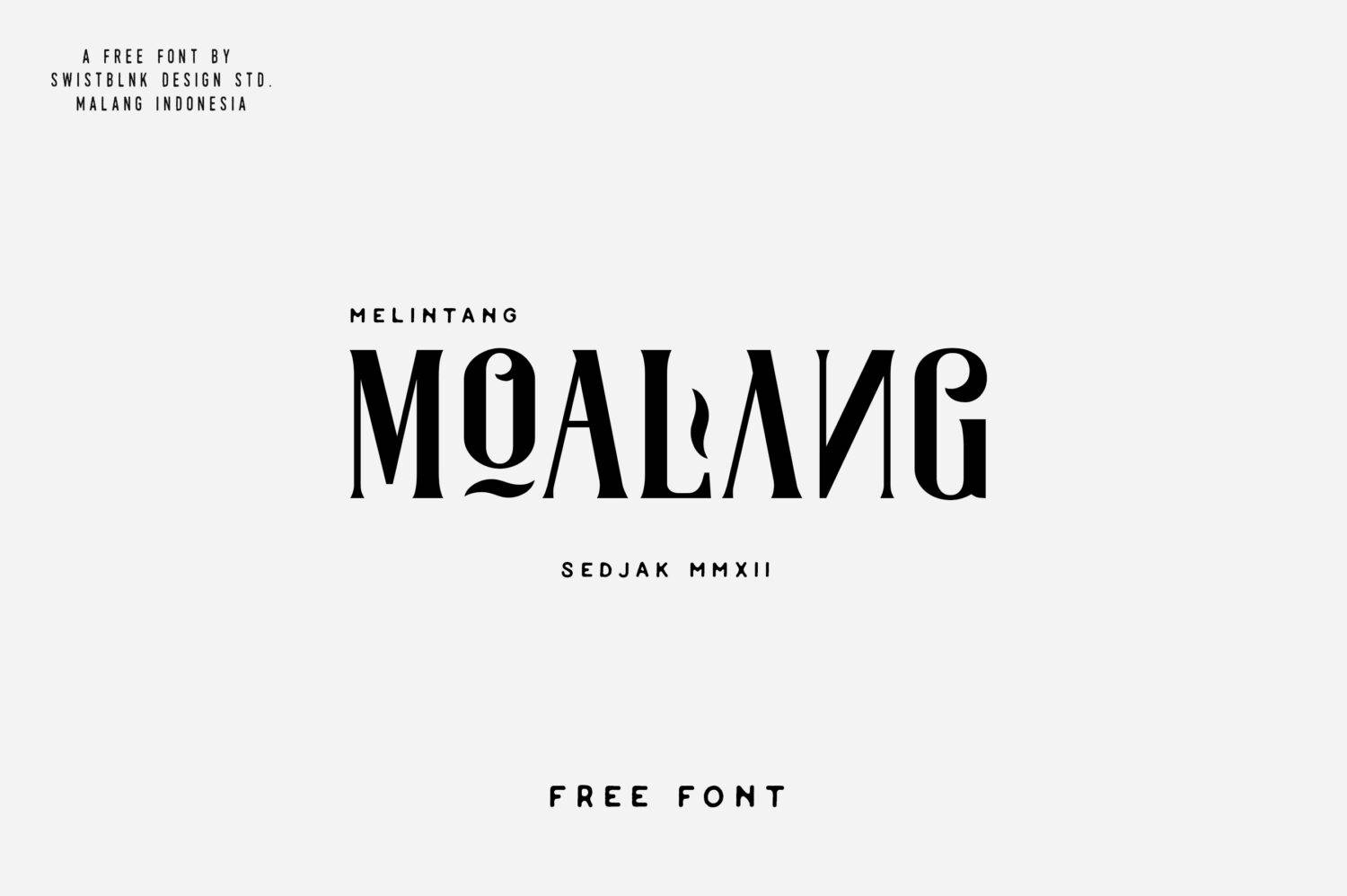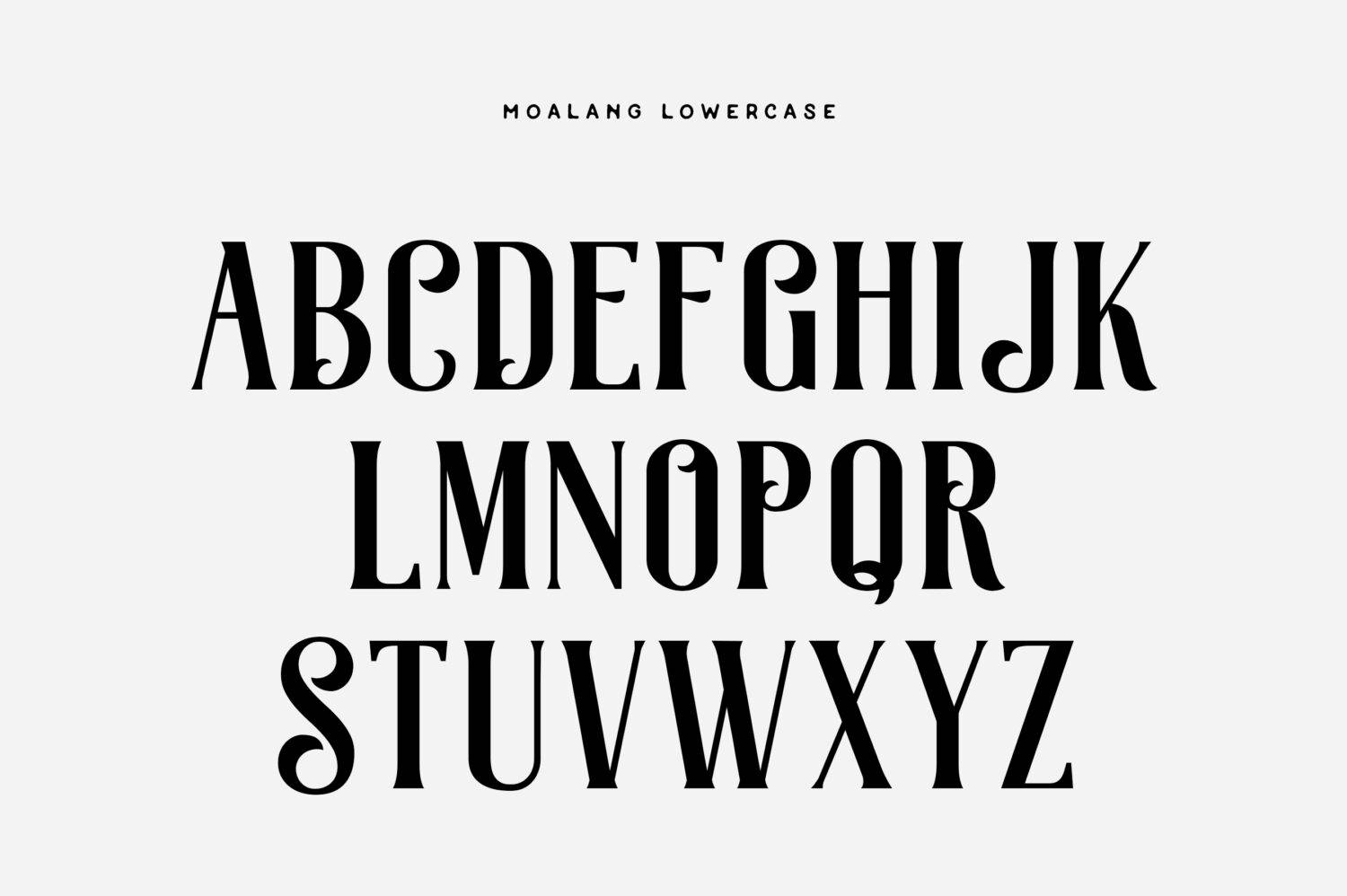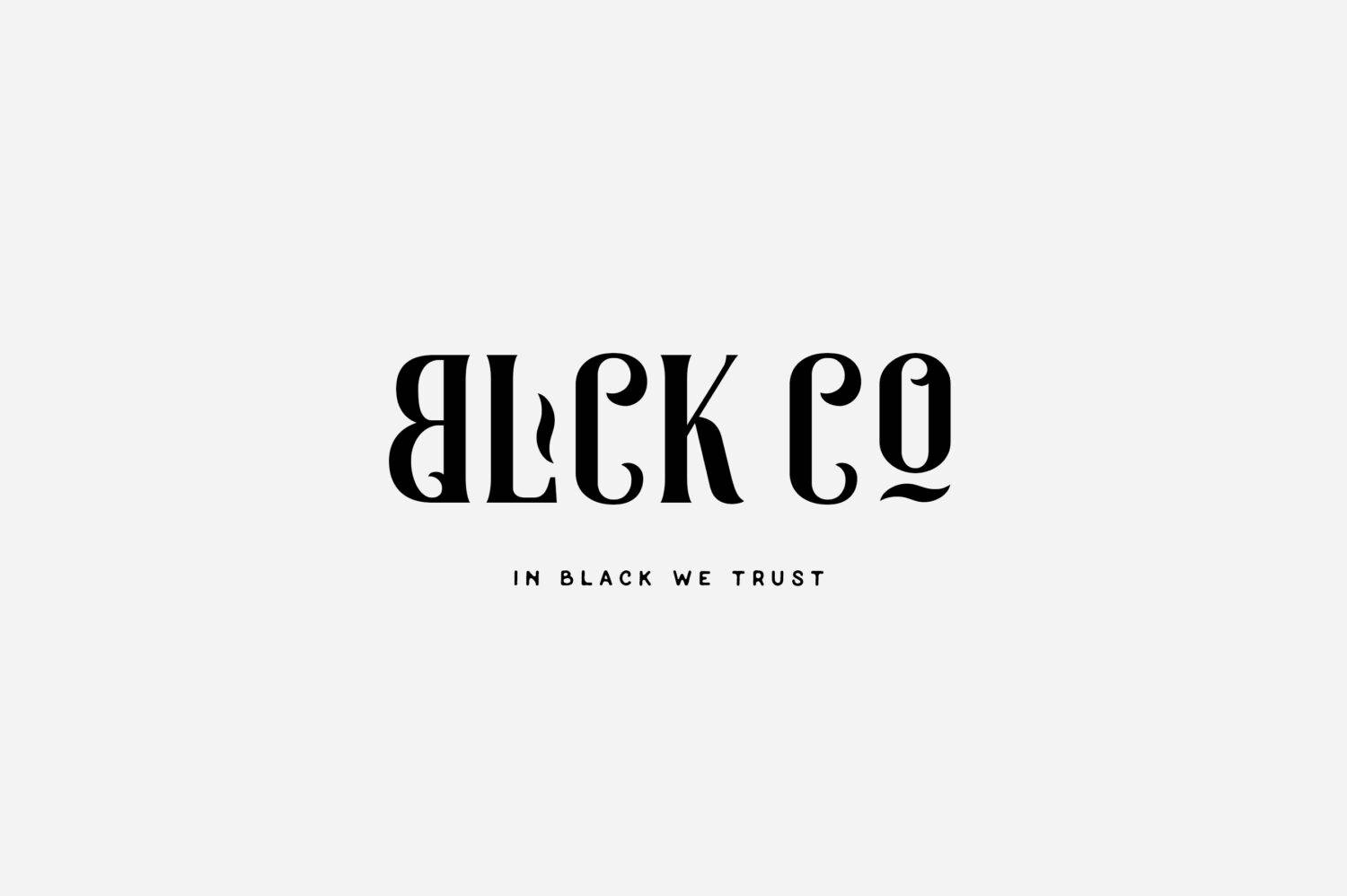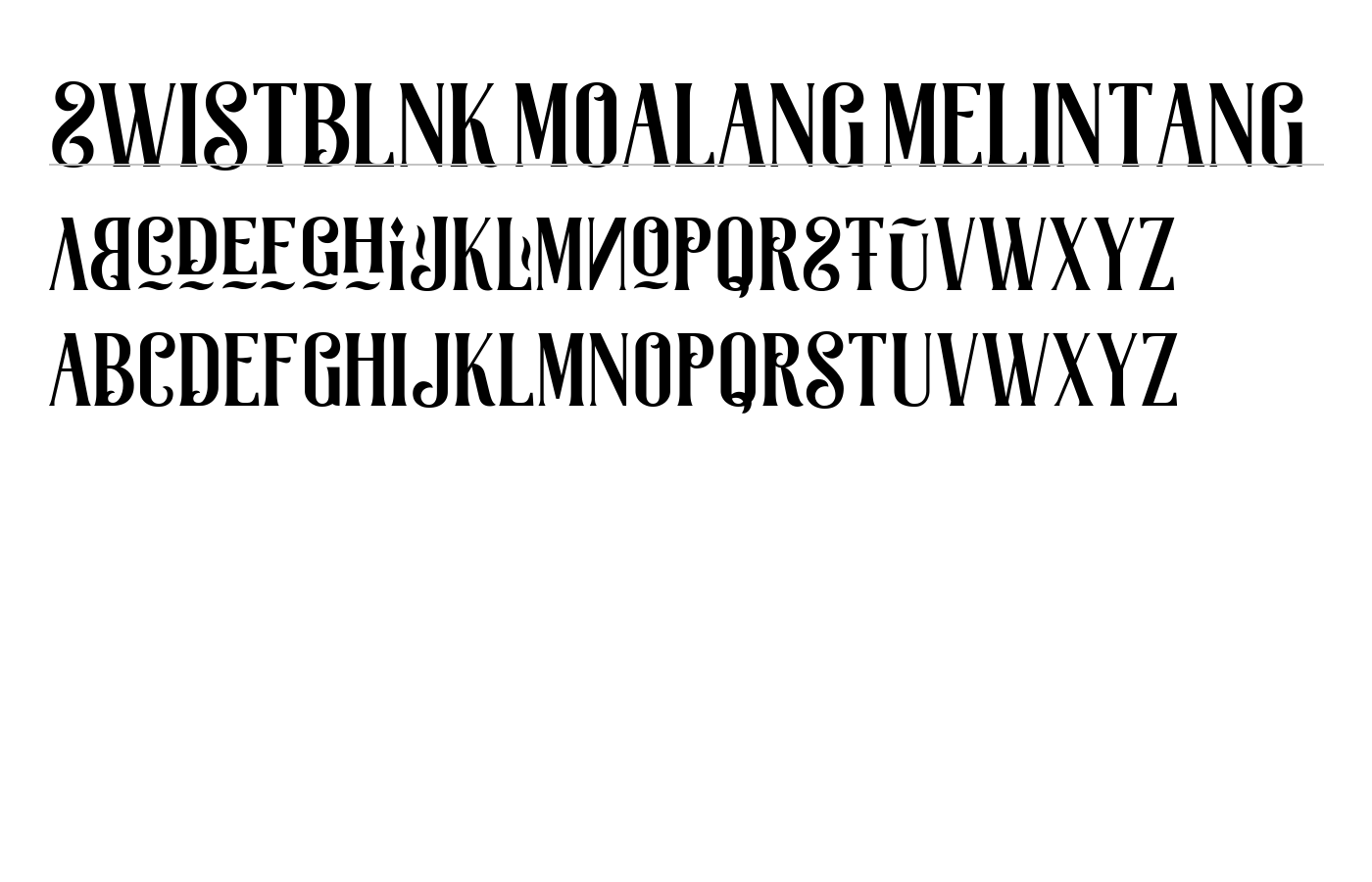
Moalang is a striking serif font with a tall, condensed structure and high contrast between thick and thin strokes, giving it a bold, elegant presence. Its unique, decorative details and sharp serifs add a vintage yet avant-garde feel, making it perfect for eye-catching headlines, logos, and branding that seeks a blend of sophistication and artistic flair. This font works well in fashion, luxury, and editorial contexts where a strong personality and refined style are desired.
Moalang Font
About Moalang Font
| Font family | Moalang Font |
| Release date | 2016-03-14 |
| Designer | Agga Swistblnk |